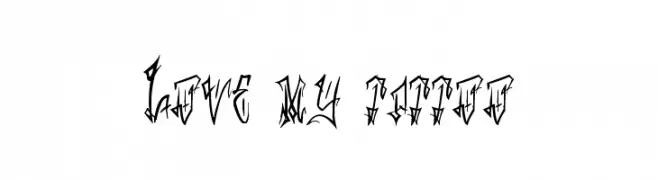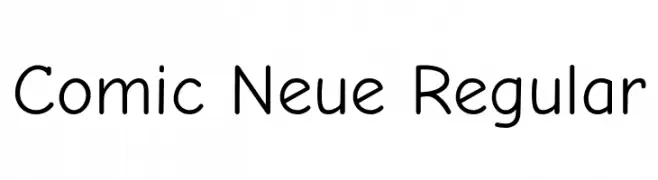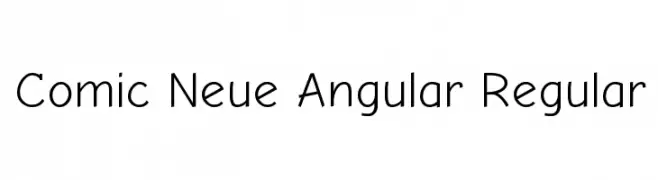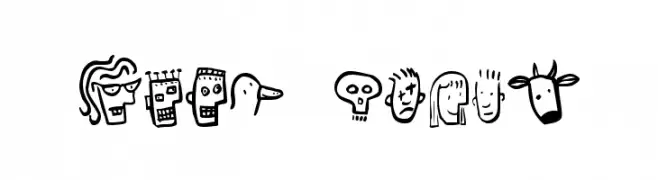
A classic serif typeface with high contrast and elegant strokes.
An ornate, decorative font with intricate designs and bold, artistic flair.
A bold, decorative font with a hand-drawn, three-dimensional style.
A bold, graffiti-inspired font with a dynamic, hand-drawn style.
A bold, textured, hand-drawn font with a gritty, urban style.
A bold, italicized font with a hand-drawn, sketch-like texture.
A bold, tattoo-inspired font with sharp, angular lines and intricate details.
A playful, rounded font with a casual and friendly appearance.
A playful, modern font with angular elements and a dynamic feel.
Cartoonish, hand-drawn font made of expressive faces.